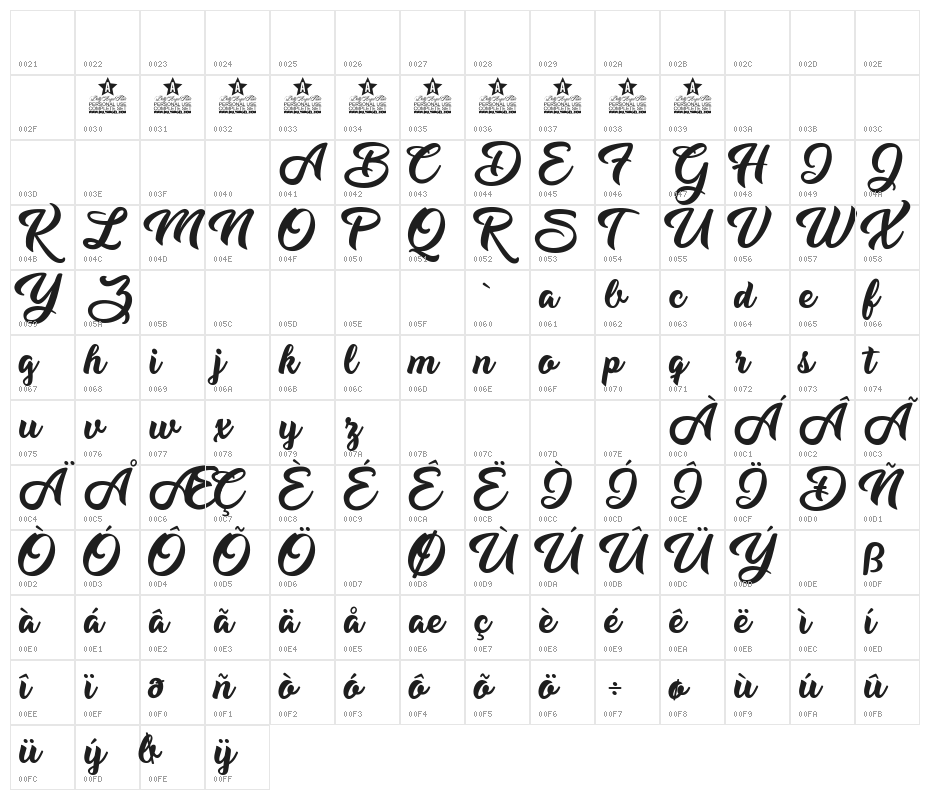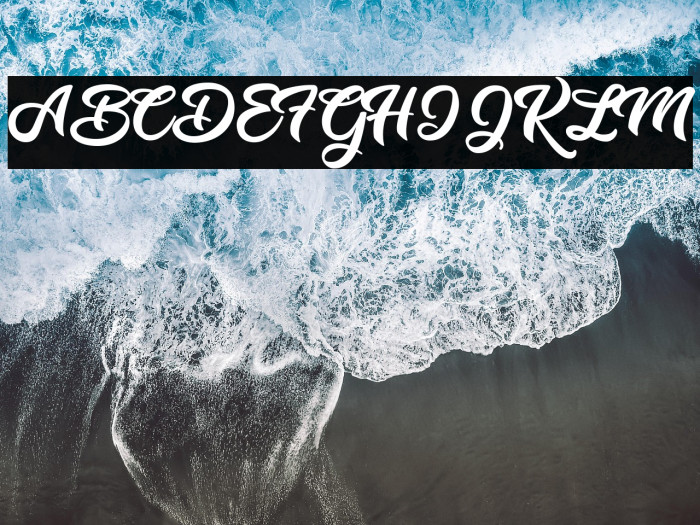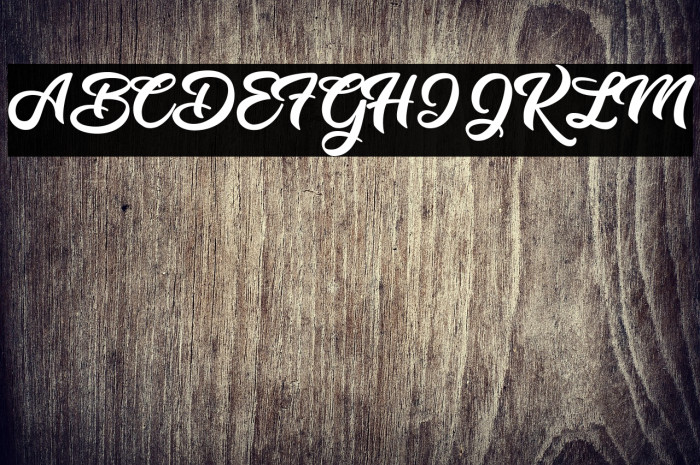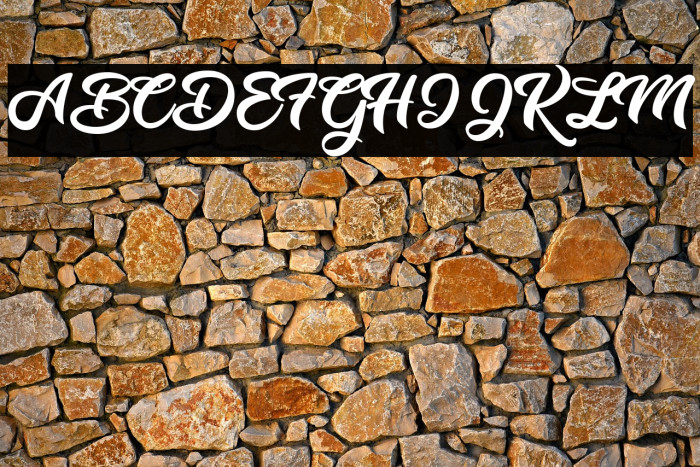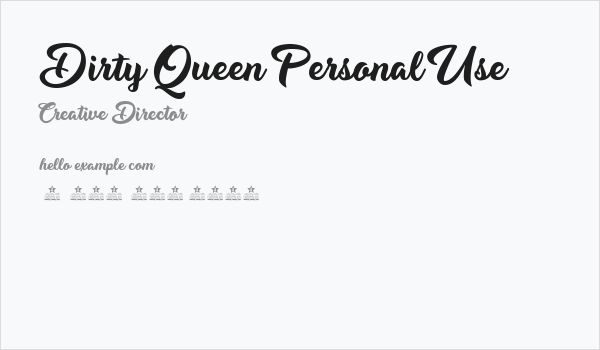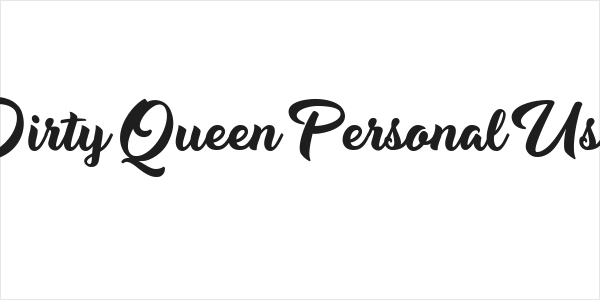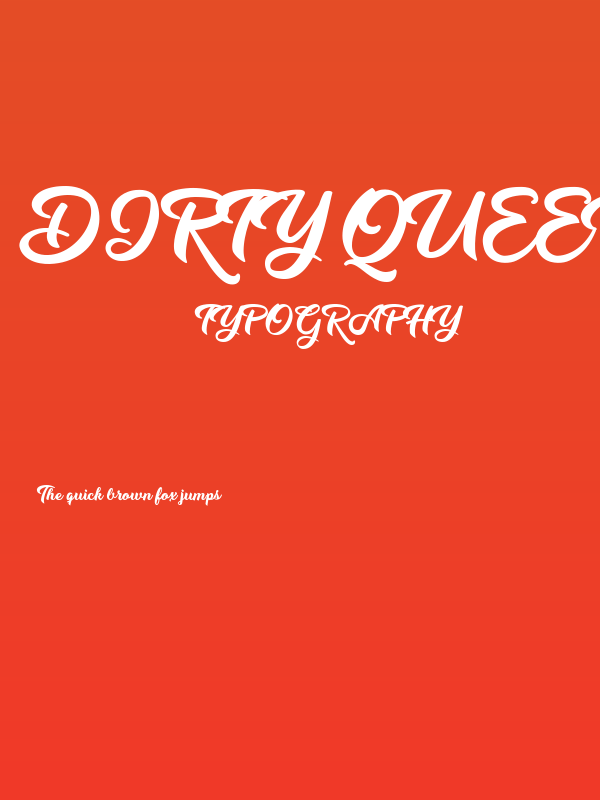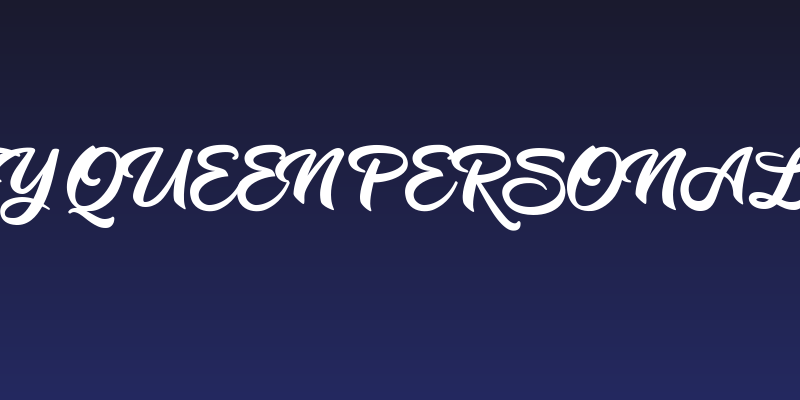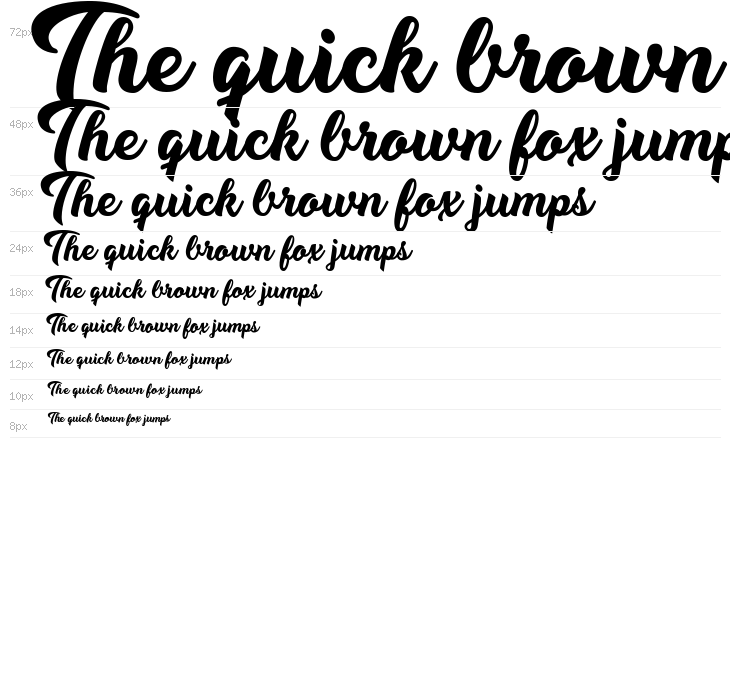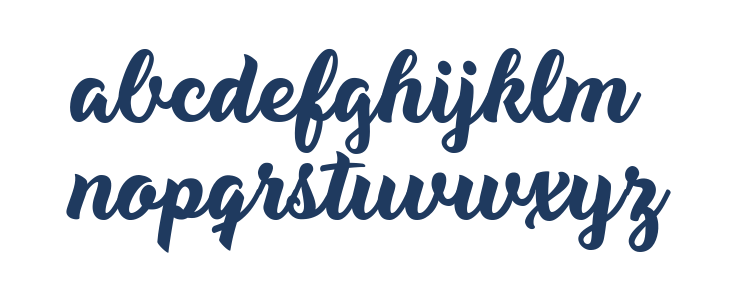
Dirty Queen Personal Use Font
Dirty Queen Personal Use Description
This font features a bold, cursive style with a strong presence. The uppercase letters are elegantly curved with decorative flourishes, while the lowercase letters maintain a consistent flow, enhancing readability. The strokes are thick and consistent, giving the font a robust and confident appearance. The overall design is reminiscent of classic calligraphy, yet it carries a modern twist with its boldness. The spacing between characters is tight, which adds to the cohesive look of the text. This font is ideal for making a statement, whether in headlines or logos, due to its eye-catching and stylish nature.